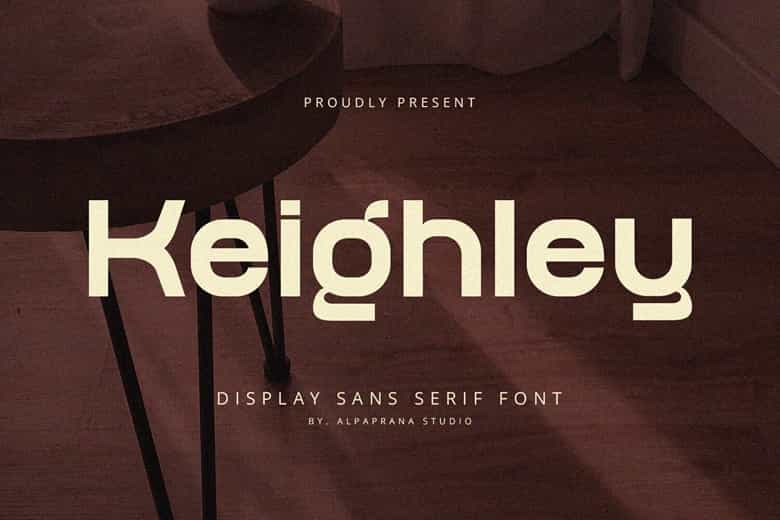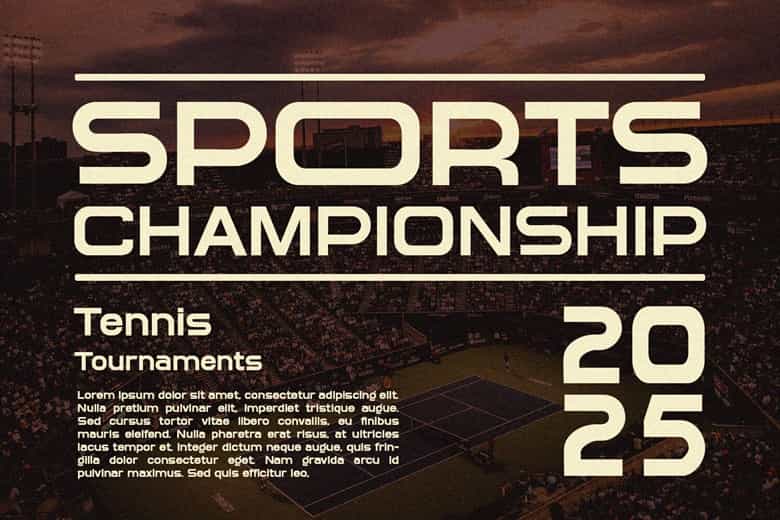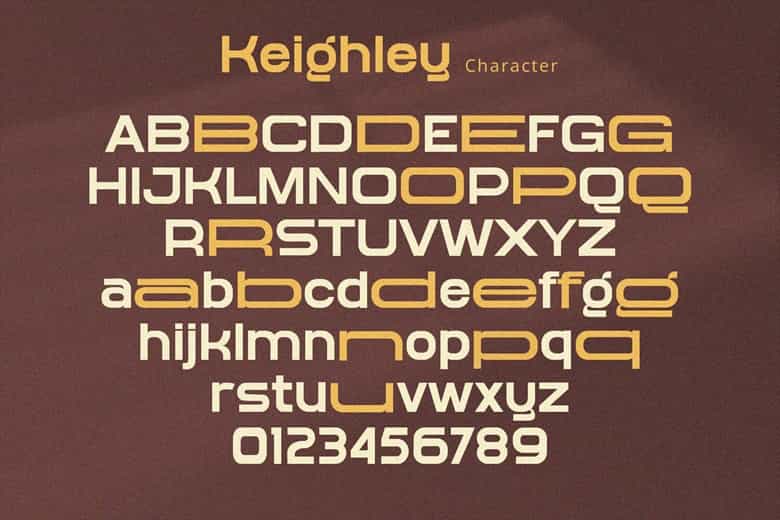
For your information Keighley is display sans serif font with elegant and modern feels. It will be ideal for Branding, logo design, lettering, logotype, clothing, poster, magazine, packaging design, posters, shopping bags, t-shirts, book covers, photography, special event and any other design.